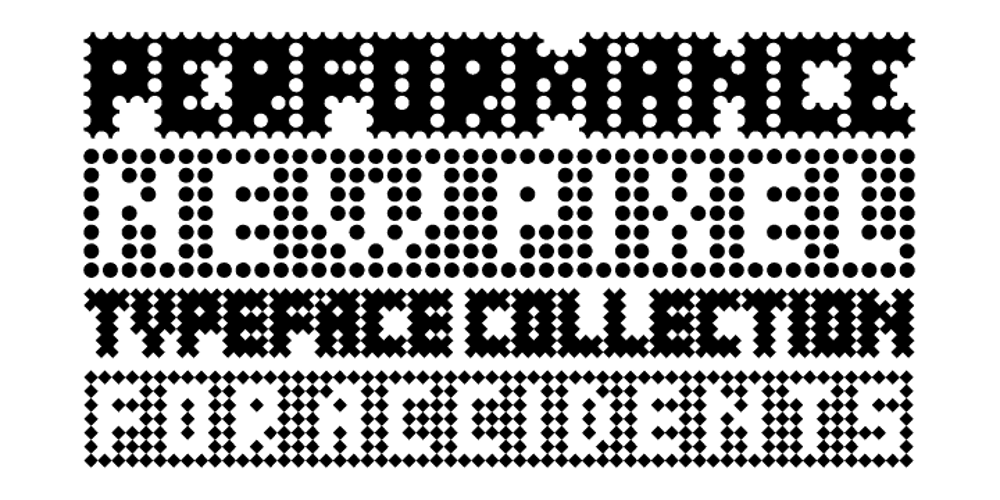
Performance Font Family was designed by Alexey Bokov and published by ParaType. Performance contains 4 styles and family package options. Performance is a set of perforated plates that appear to be characters. The construction of characters is described by sequences of holes whose shape and placement define the appearance and mood of font styles. An interesting feature of the design is an absence of side bearings and leading. Due to this feature a text article set by Performance forms a perforated coherent surface similar to postage stamp block.